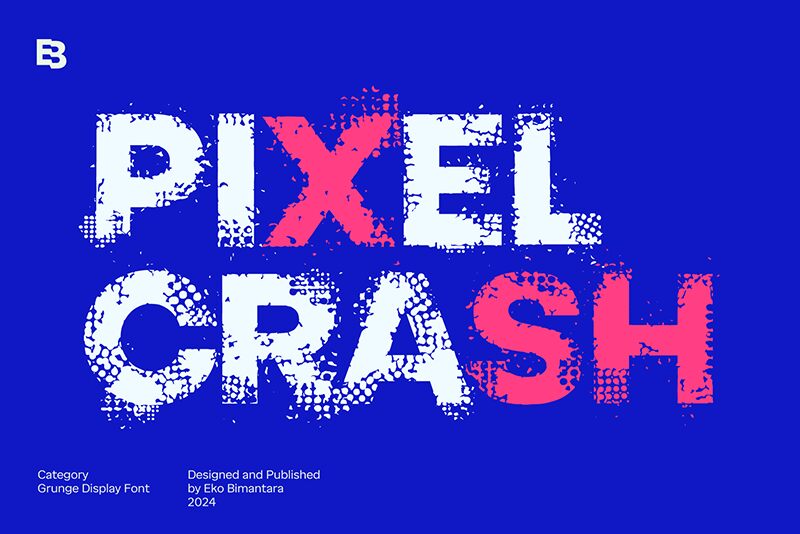
Pixel Crash font by Eko Bimantara is a free font that offers a distorted, eroded aesthetic. This typeface brings a grunge, distressed feel with subtle imperfections crafted to achieve a digital and aggressive personality. It’s energetic and chaotic, making it the perfect modern choice for design projects needing that perfectly irregular touch.
If your design needs to vibe on the edgy, modern, and impactful side, Pixel Crash will help you achieve this. Use it for poster designs, music album covers, sticker and label designs, branding, packaging, flyers, and social media. Other possible use-cases include magazine and newspaper headlines, banners, and website headers.